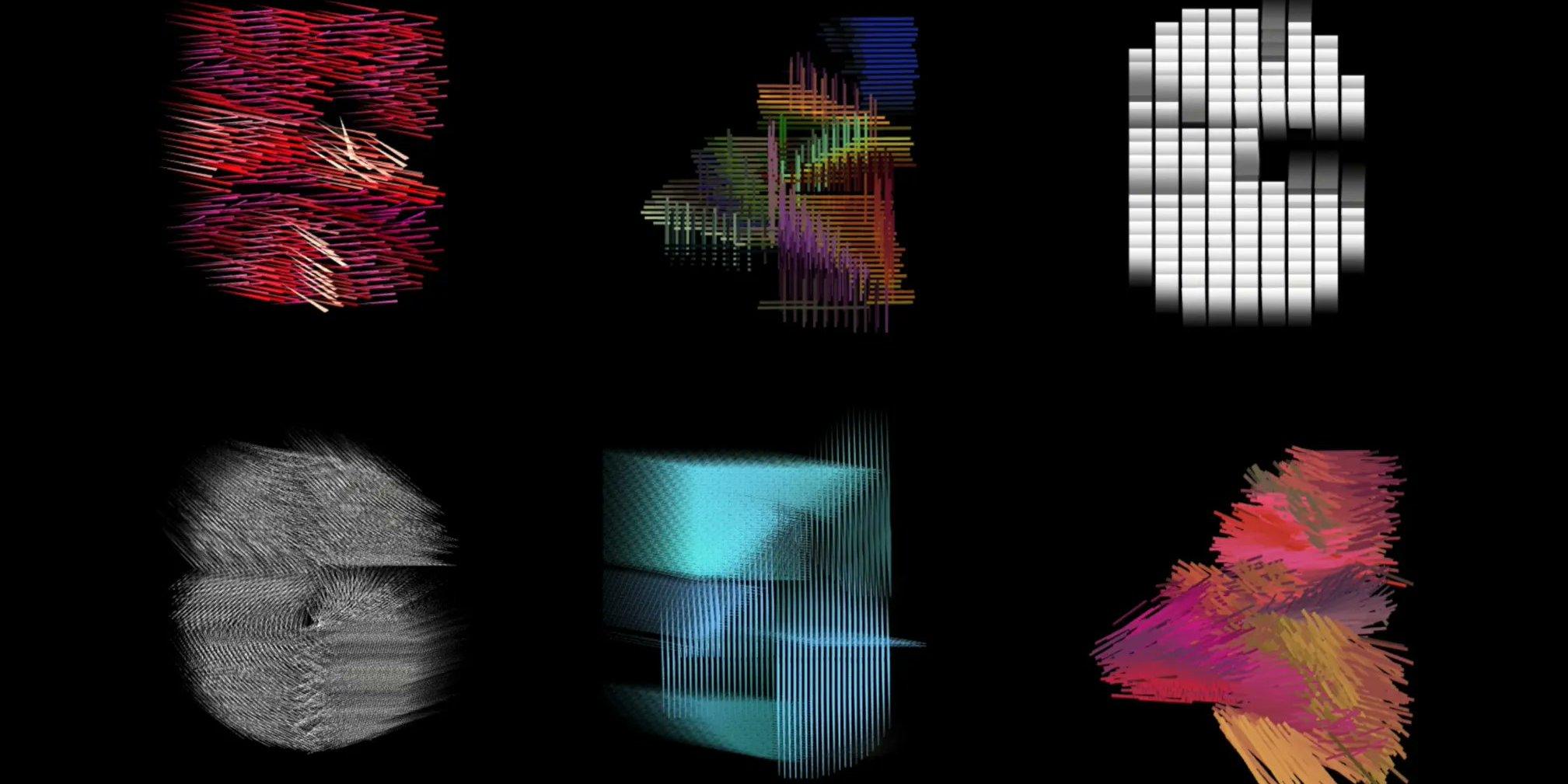
The Underware team explores the expanding universe of variable fonts. In doing so, they uncover that VFs are not the destination—they’re the vehicle. The question is not ‘how to get there?’, but ‘how to get where?’
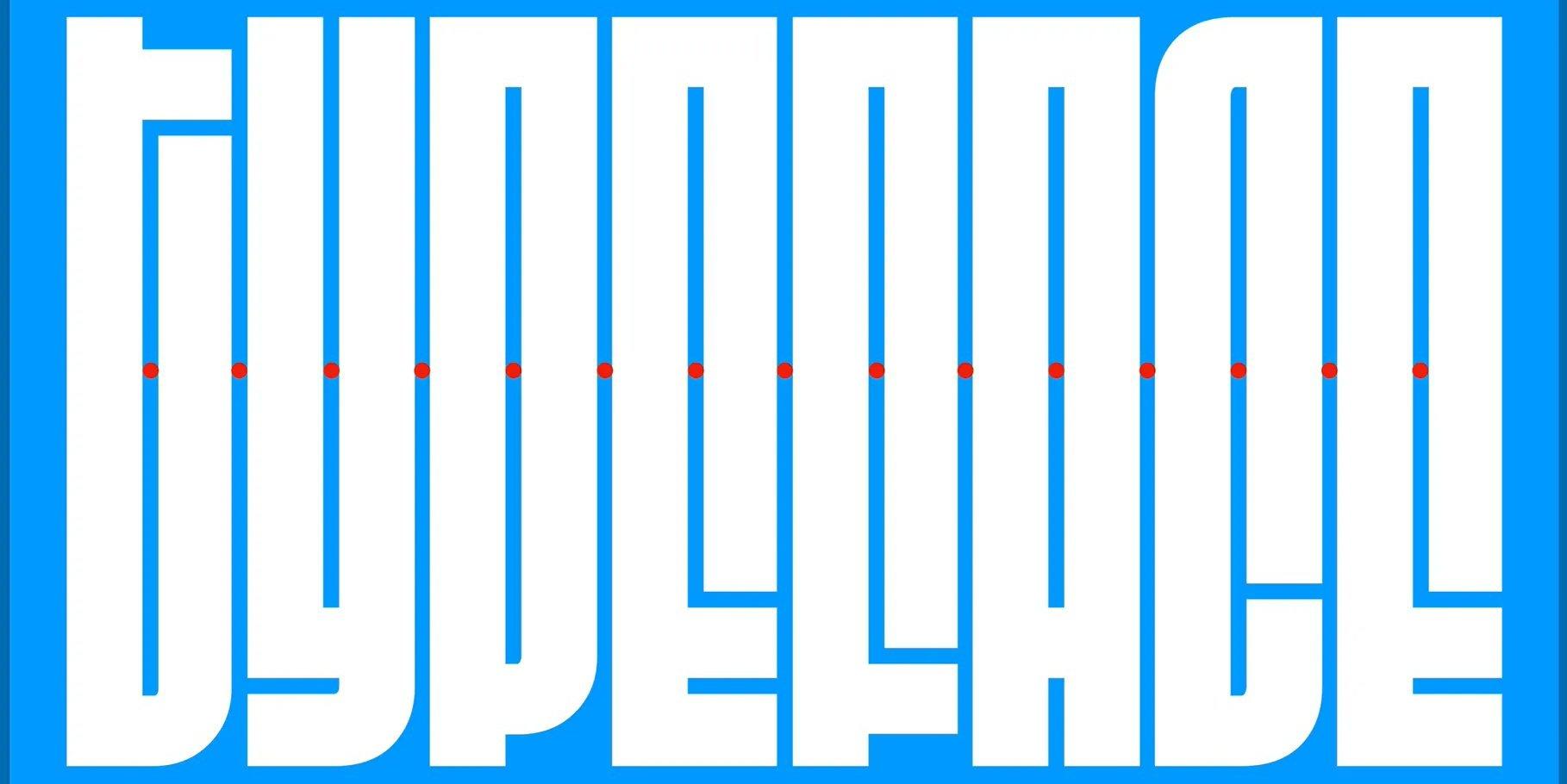
DJR shares how his typeface, Fit, which addressed the impulse to stretch and squish letters to fill space, uses variable tech to make the copy . . . fit.
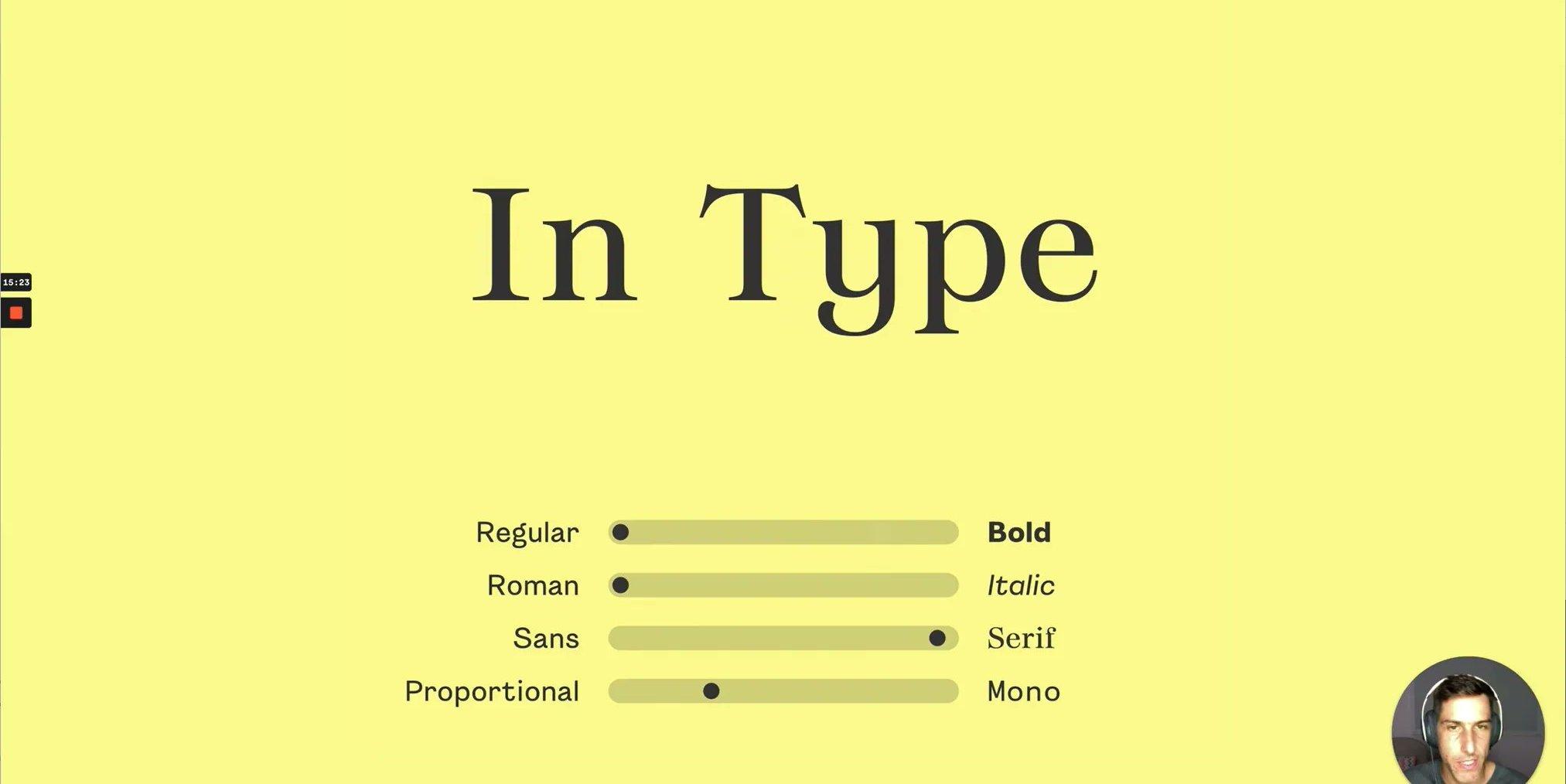
In Rodrigo Saiani’s survey of identity design, brand cultivation, and type design, he reveals not only that the fields are increasingly linked but also that they’re evolving towards a variable future.
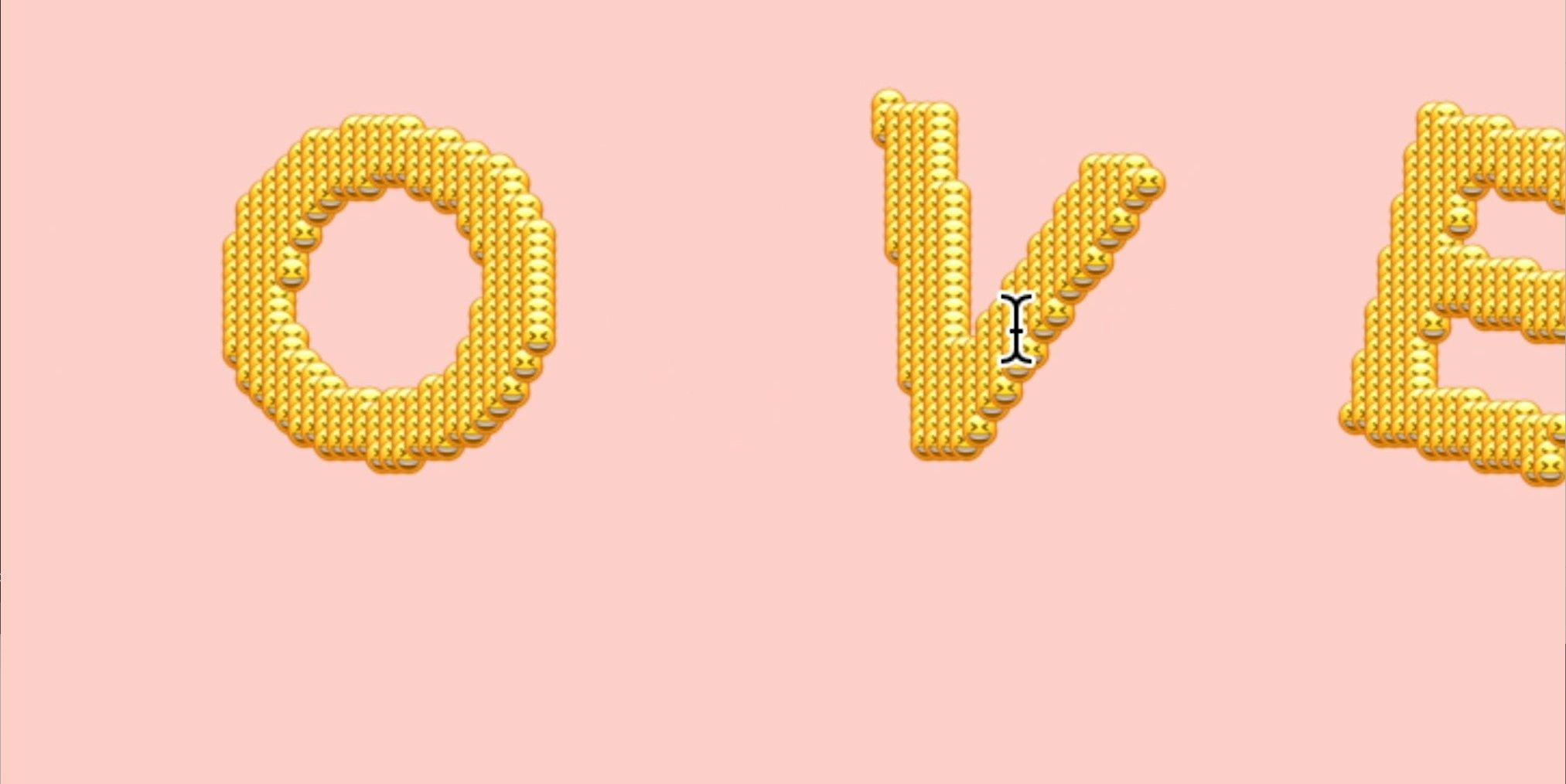
Lynne Yun and Kevin Yeh of Space Type demonstrate how incorporating real-world inputs and animation can elevate your design projects. (And how variable fonts make that easier than ever.)